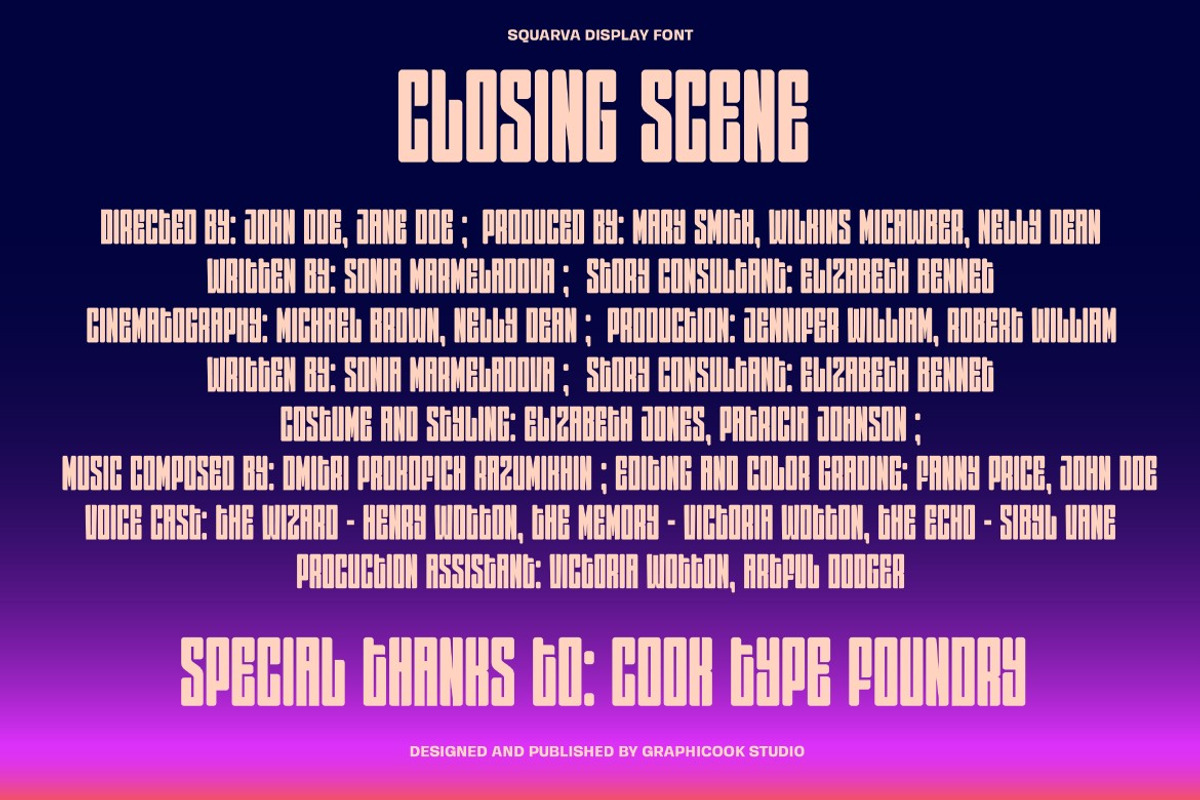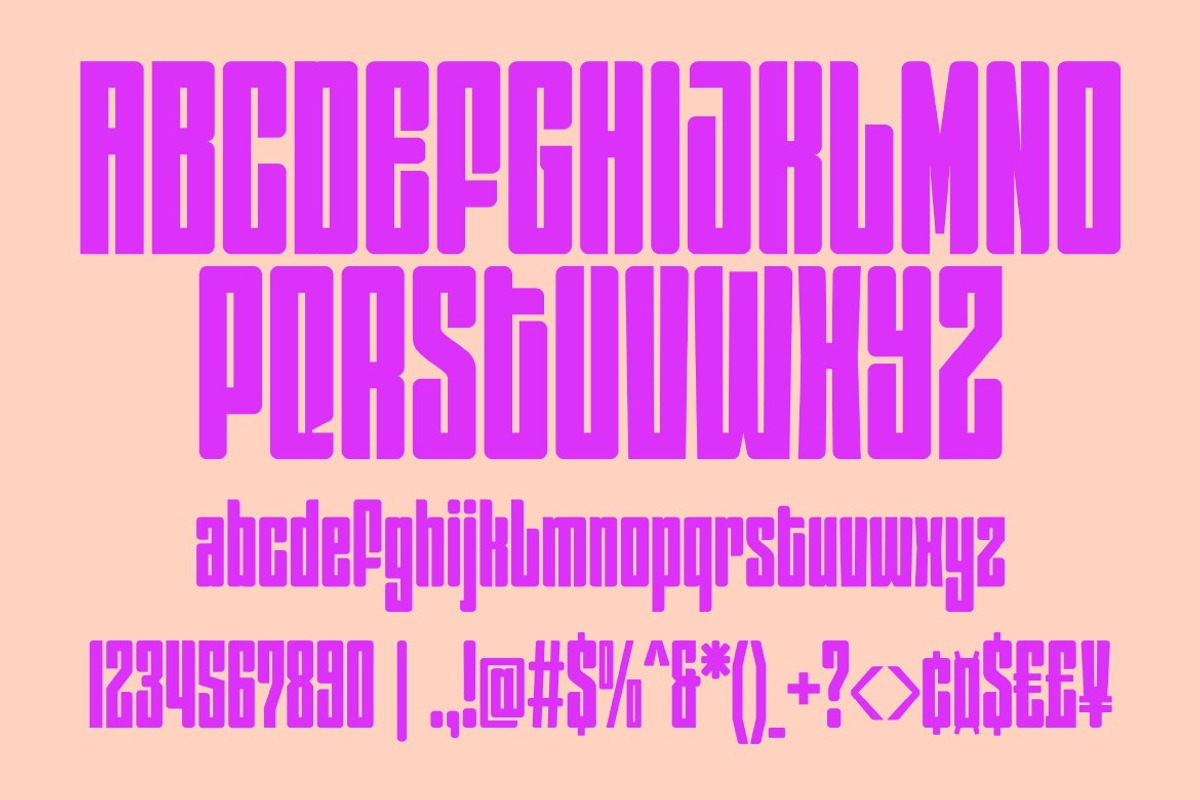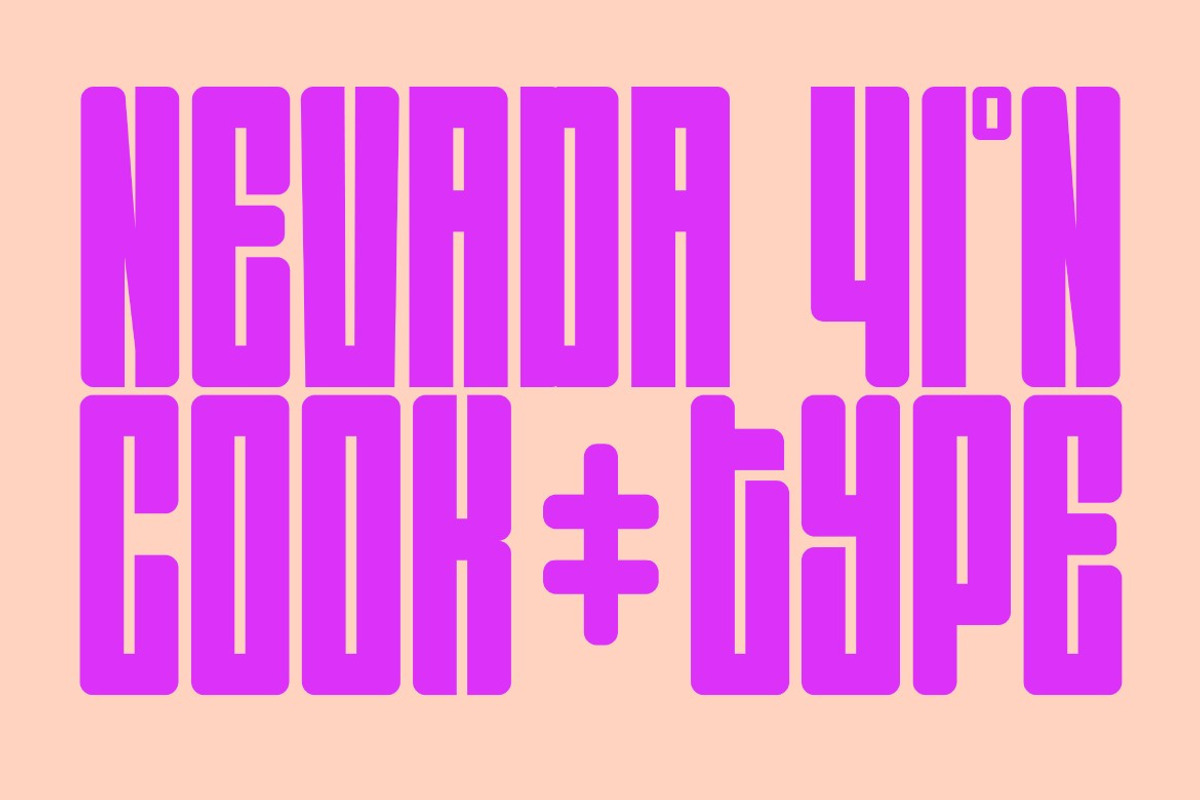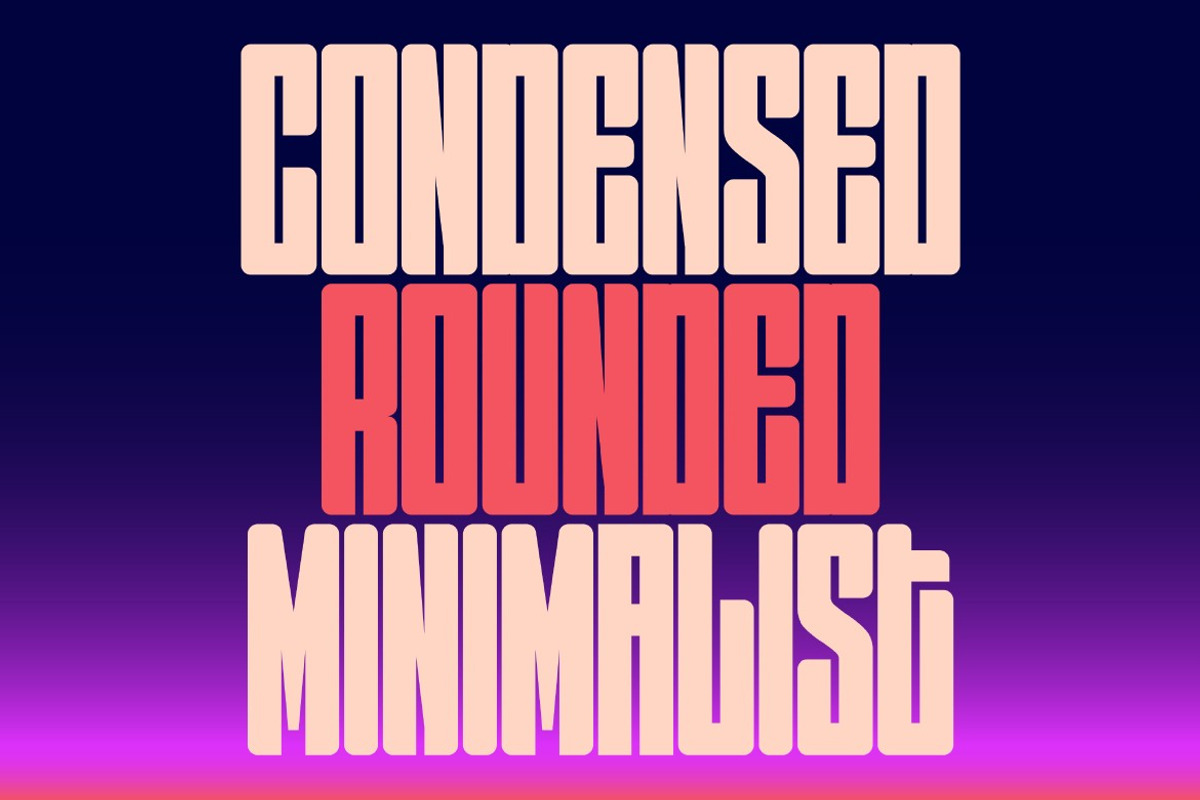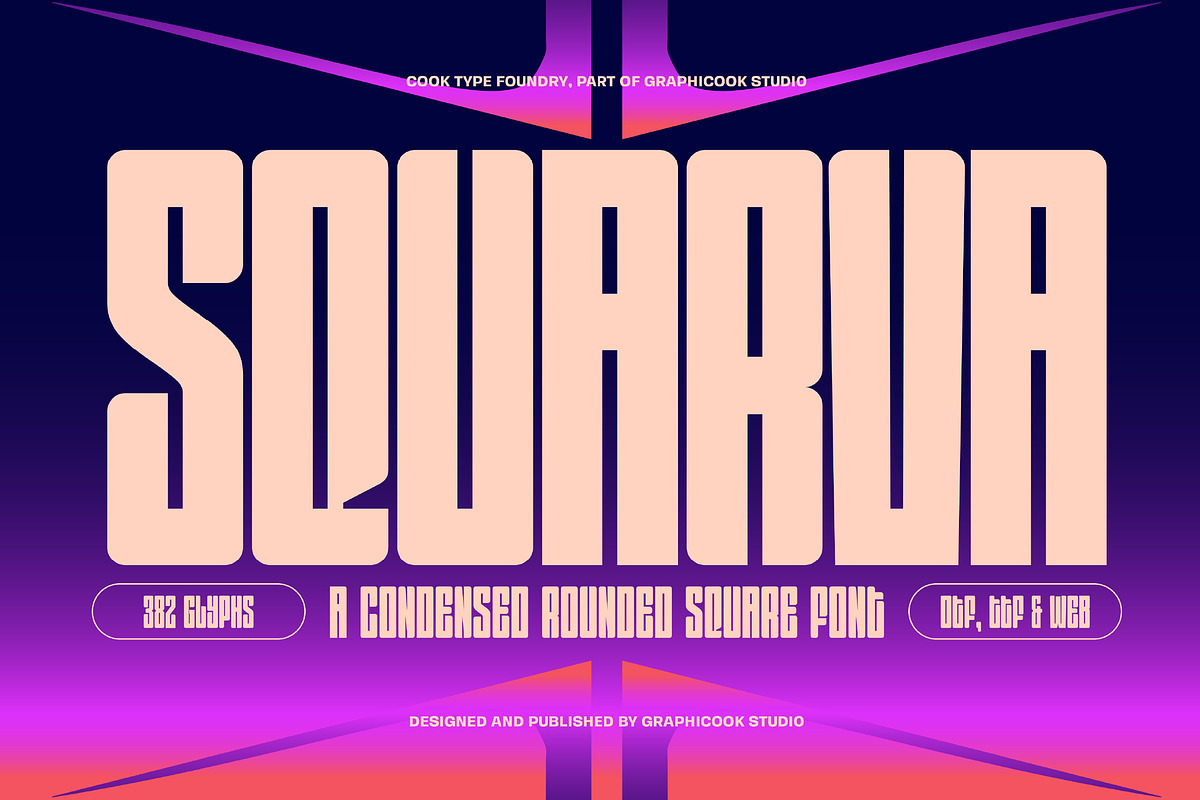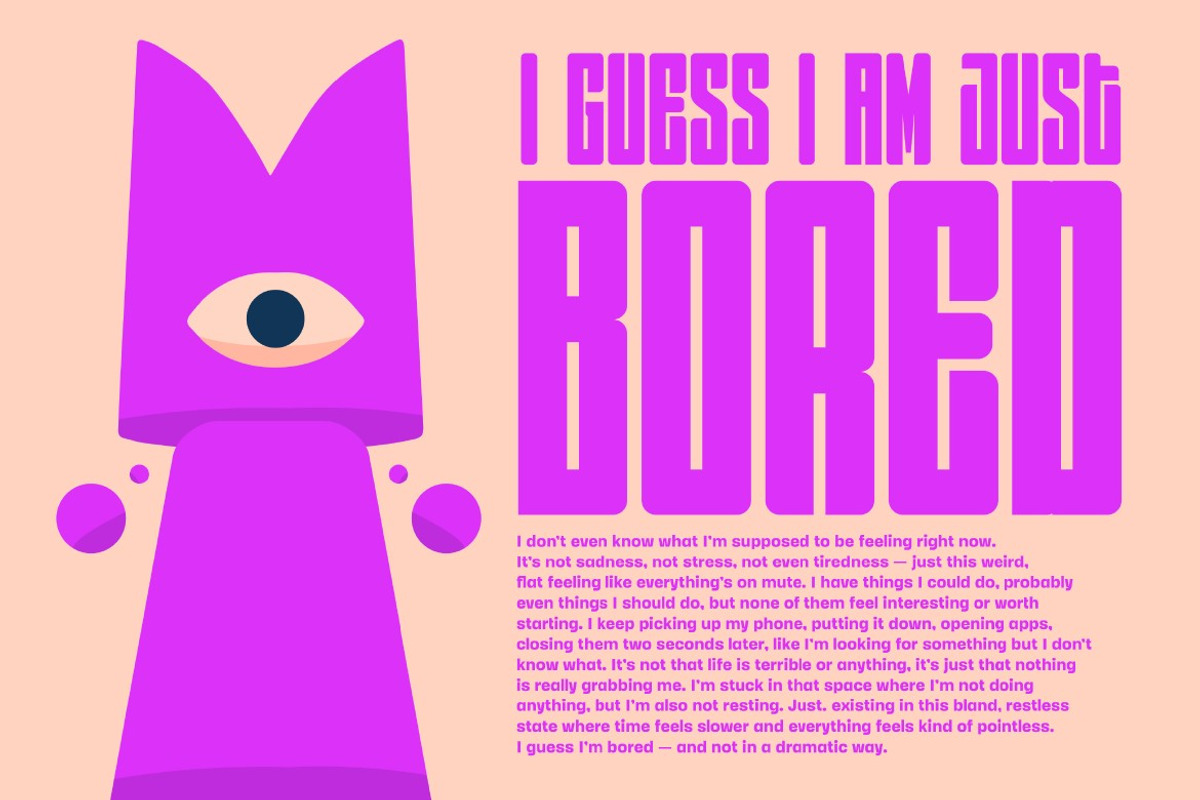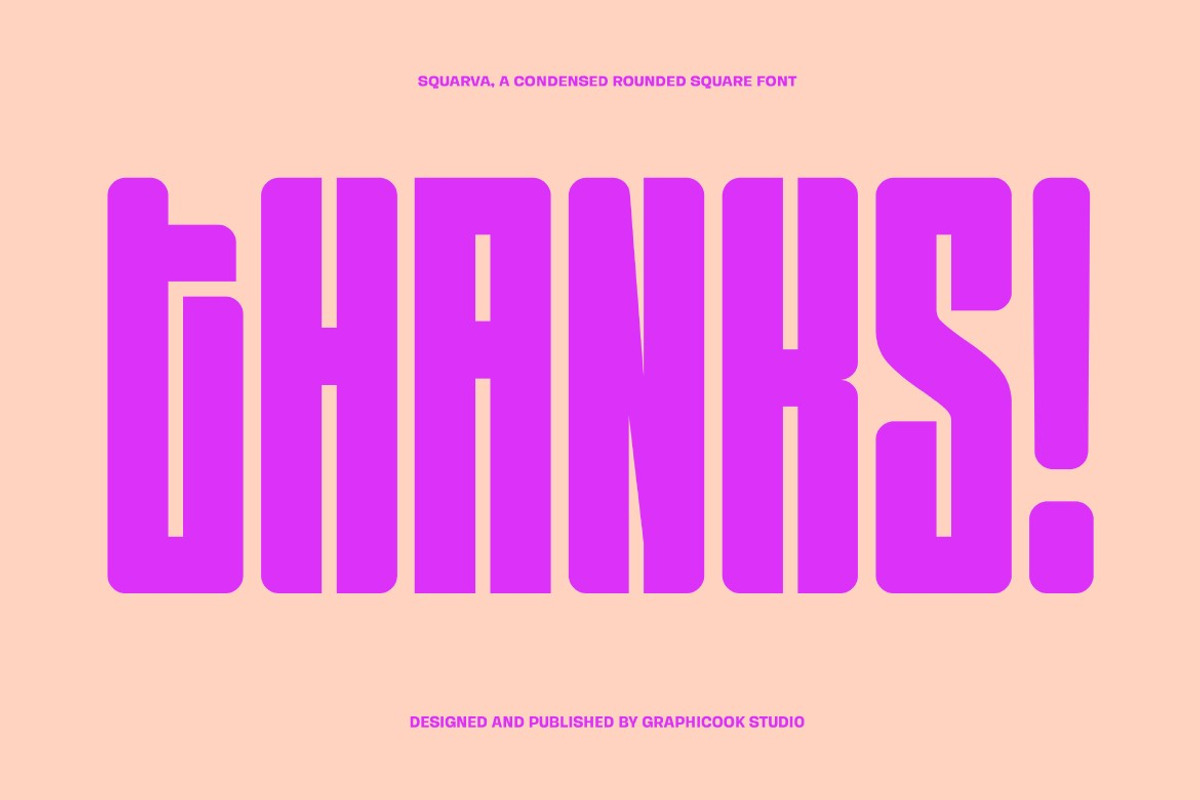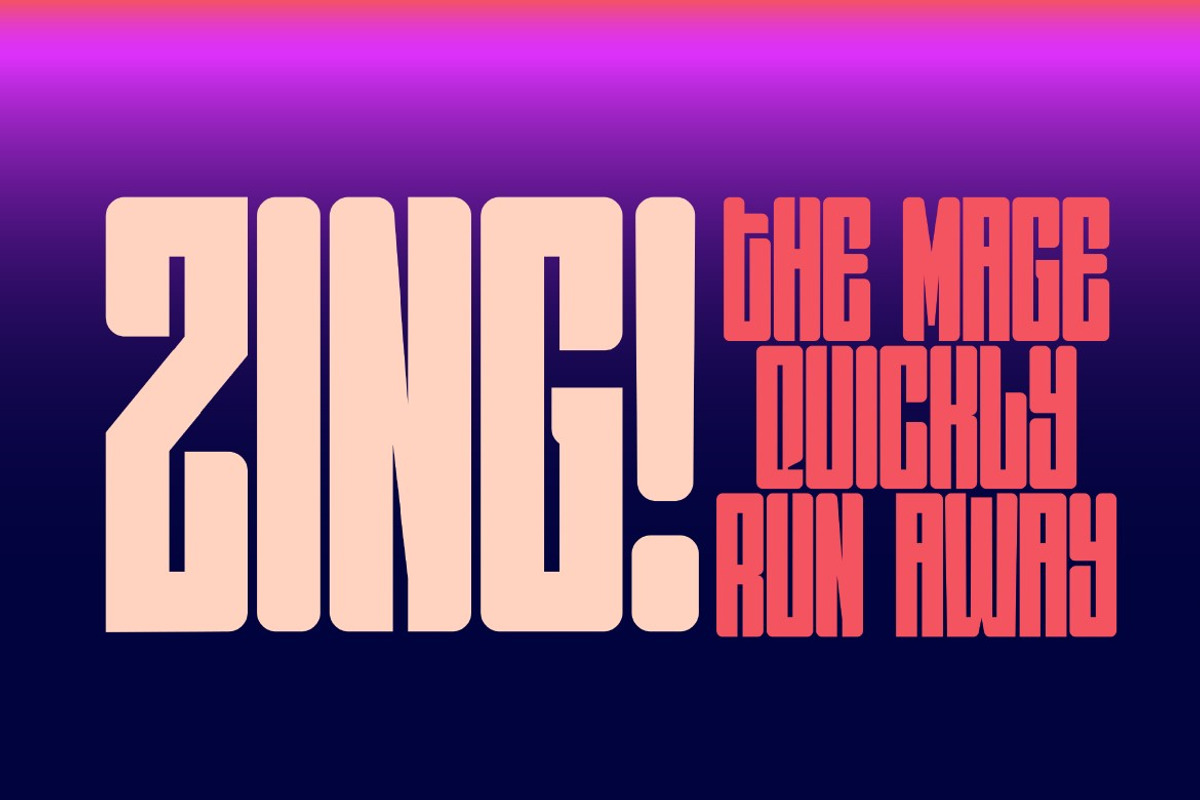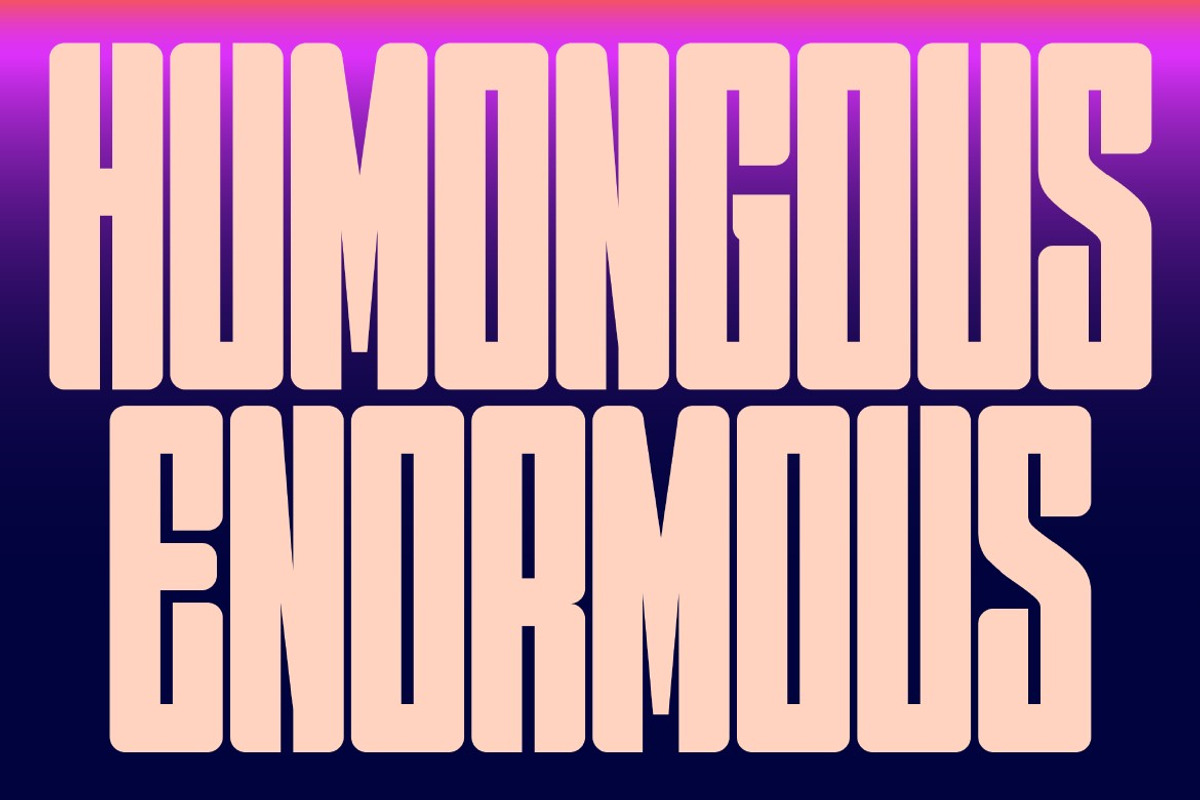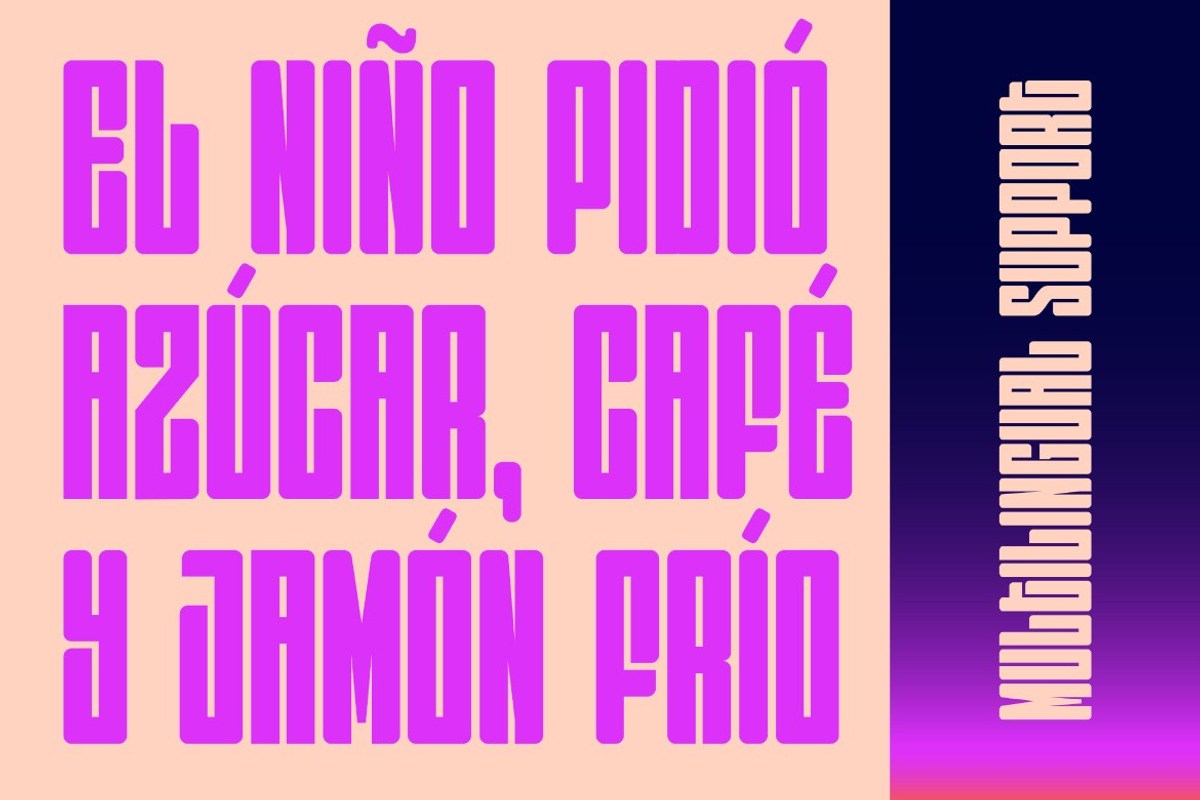
Squarva
Squarva is a condensed sans-serif font with a modern design. Perfect for games, tech projects, or futuristic-themed visuals.
Squarva is perfect for headlines, logotypes, magazines, packaging, quotes, movies, games, cover albums, book covers, and flyers, it's a perfect solution for creating eye-catching designs that stand out in any context.